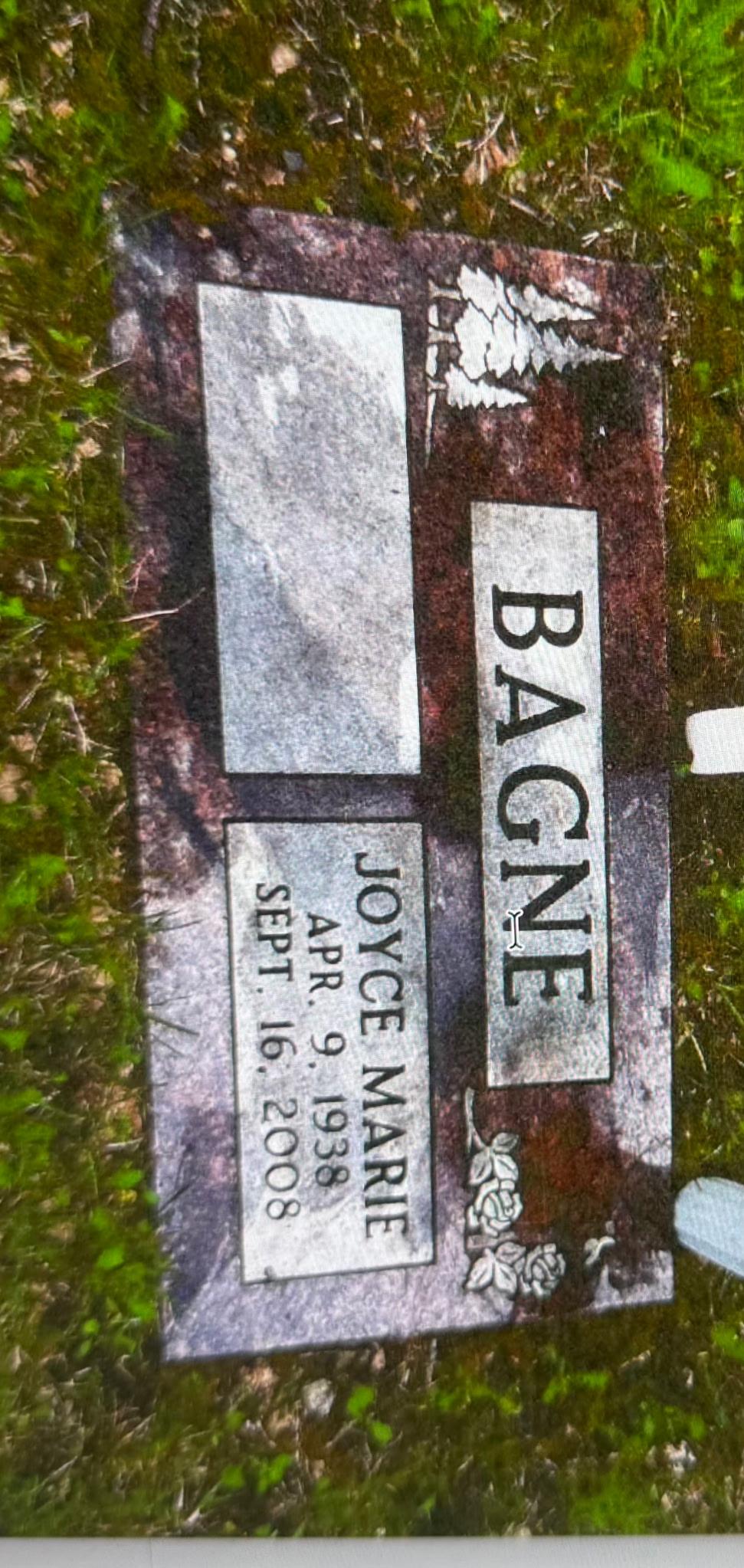
Hello Brian, unfortunately, this looks like a custom Bold Modified Roman font. It’s not something I’ve ever run into before, nor is it in any of the industry font catalogs.